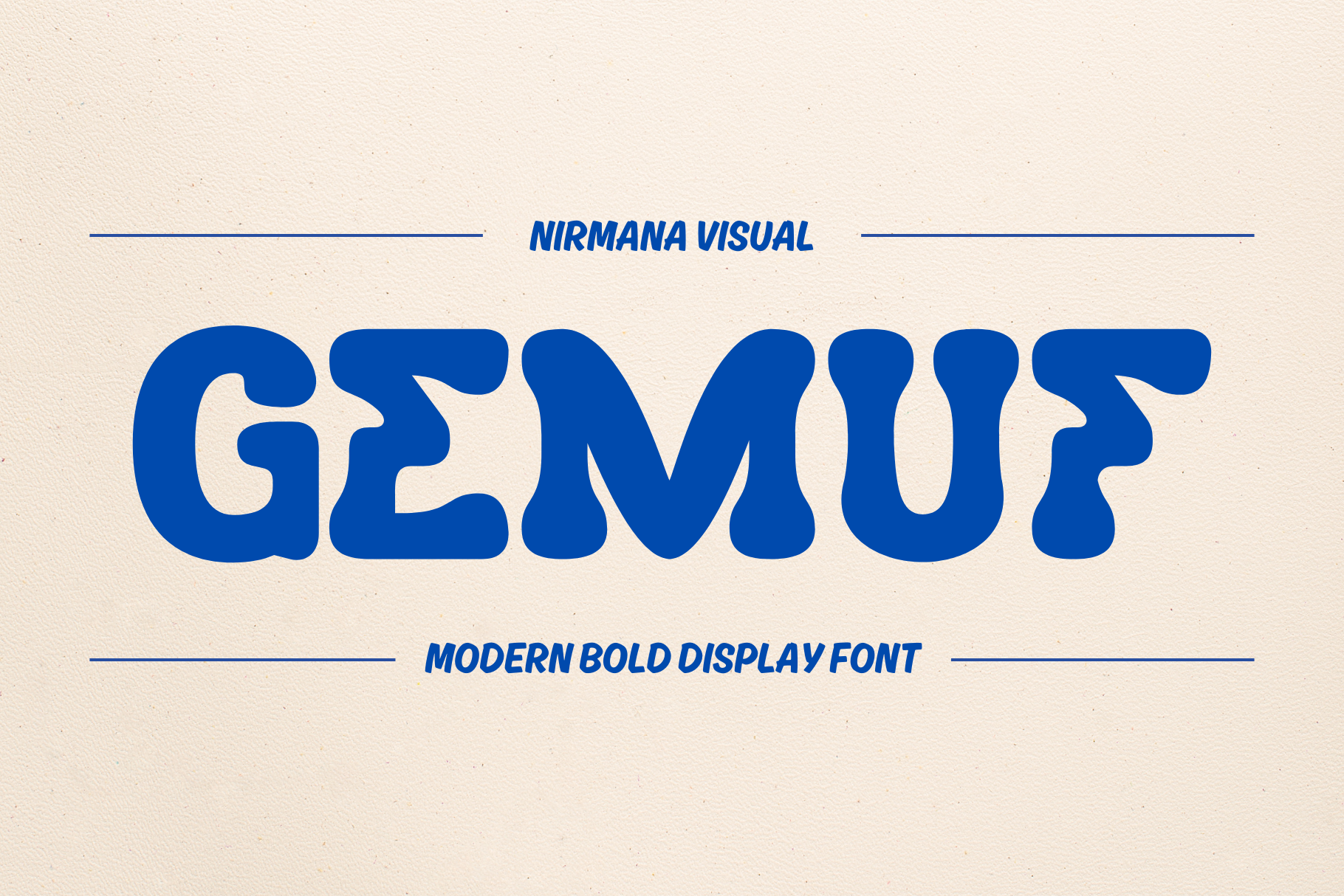
Gemuf - Branding Logo Font
Gemuf Font offers beautiful typographic harmony for a diversity of design projects, including logos & branding, social media posts, advertisements & product designs.